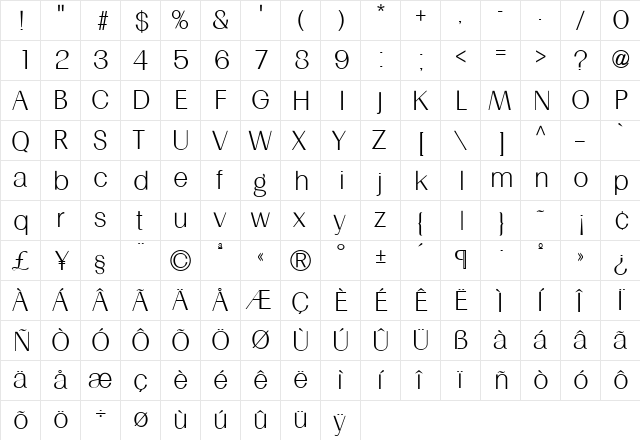
Renoir Regular
Design Context for Renoir Typeface
Renoir is a composed and adaptable typeface that performs quietly and consistently across a wide range of design contexts.
Pro Tip: Use Renoir in both headline and body roles to test its range before committing to a single application.